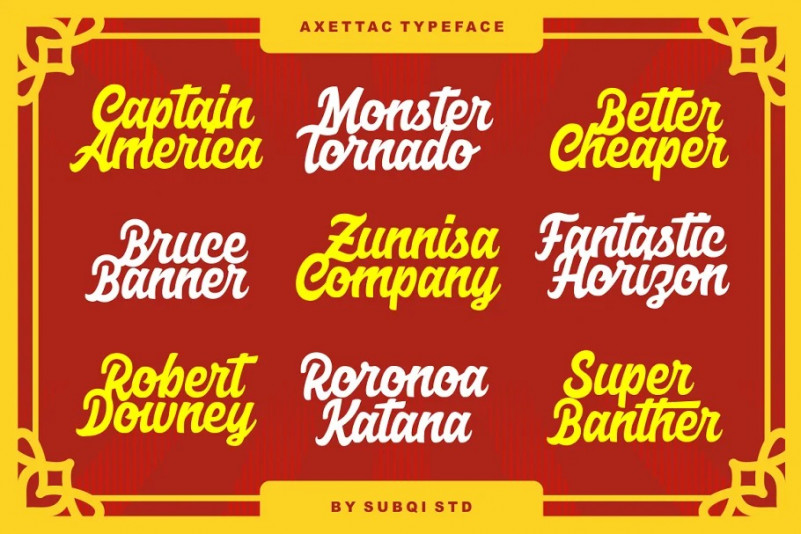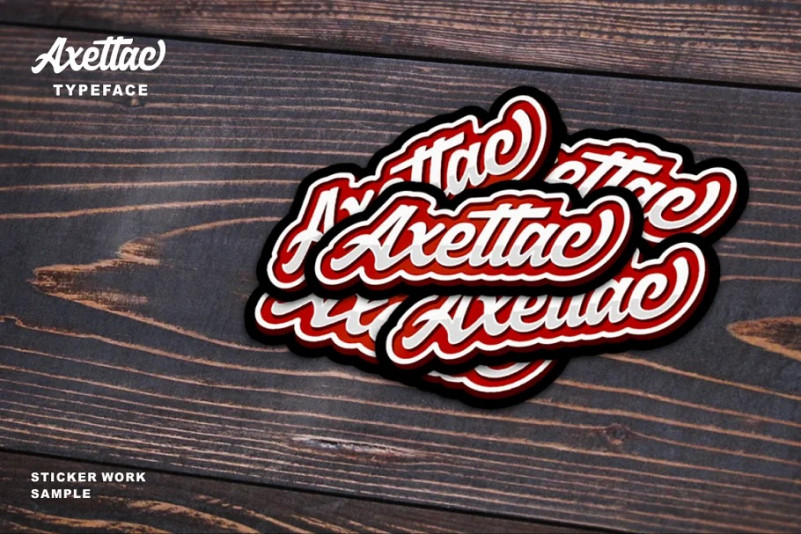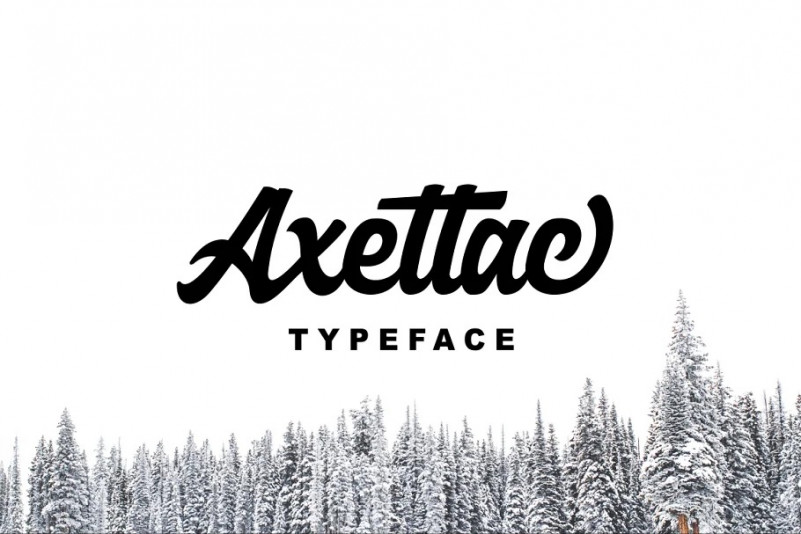
Axettac Font
Hi Everyone !.. Let us Introduce our second font debut. It’s called Axettac Script Font, It’s included Script as main font. This font is a bold script typeface. This font is perfect for logotype, label design. poster, flyer, display, sticker and many more.